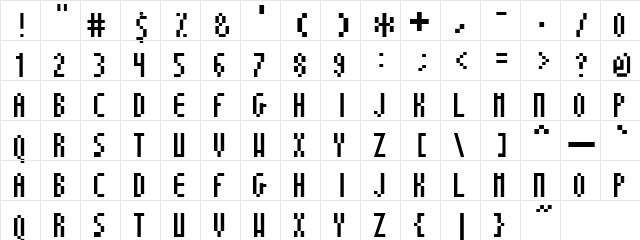
Super Fine P Regular Font Preview
Super Fine P Regular
Design Context for Super Fine P Typeface
Super Fine P takes a measured approach to typography — its balanced proportions and neutral character make it a reliable workhorse for both digital and print work.